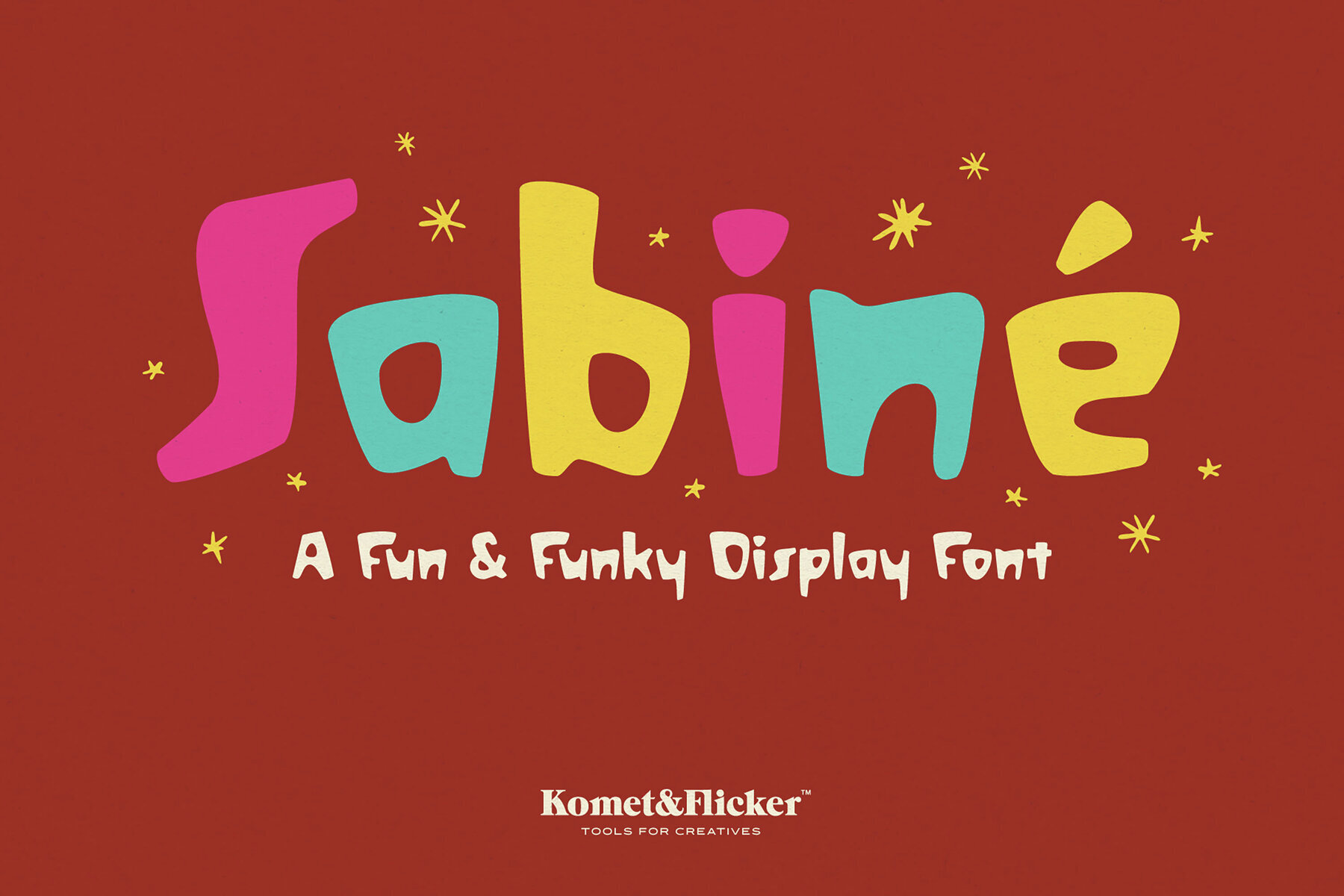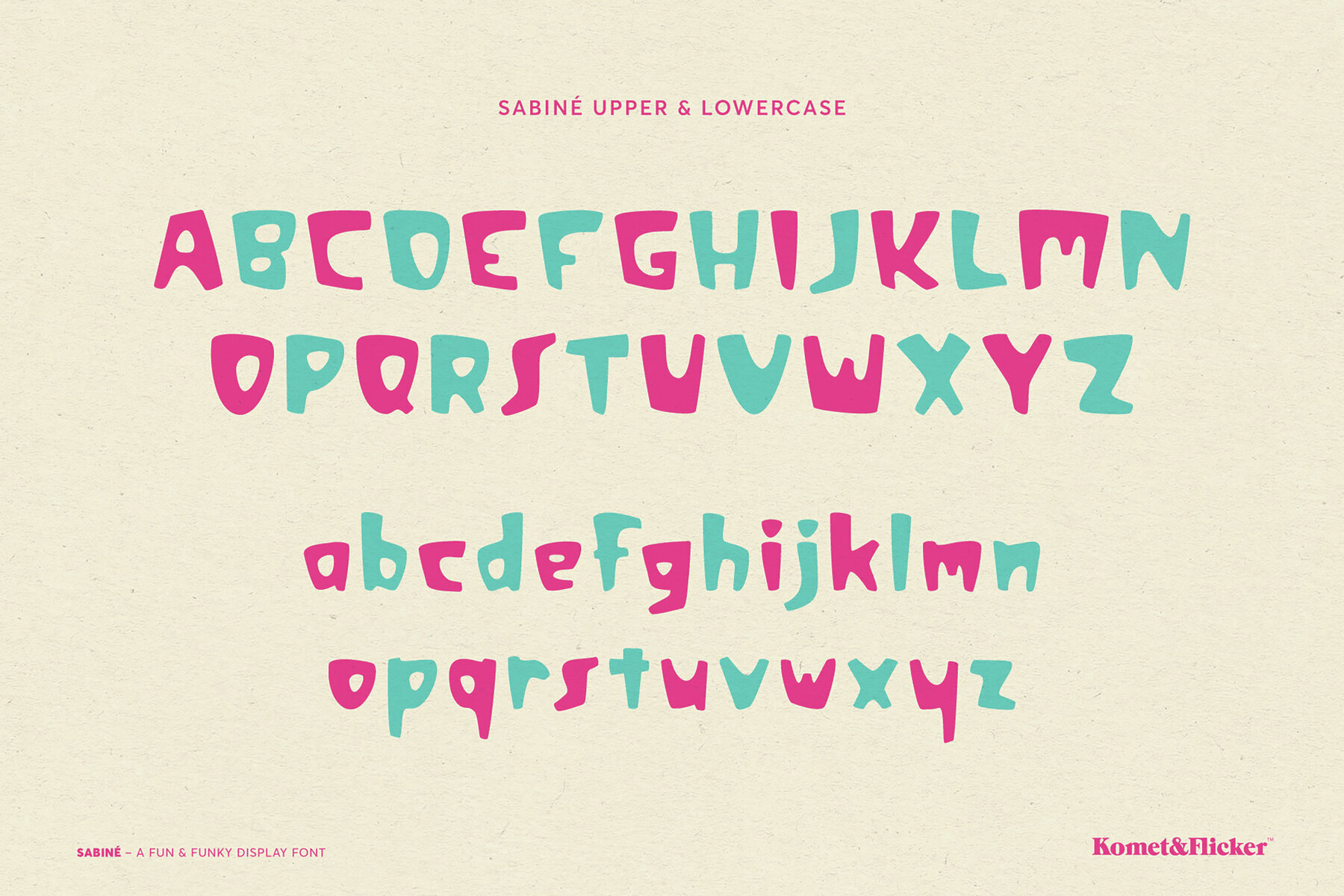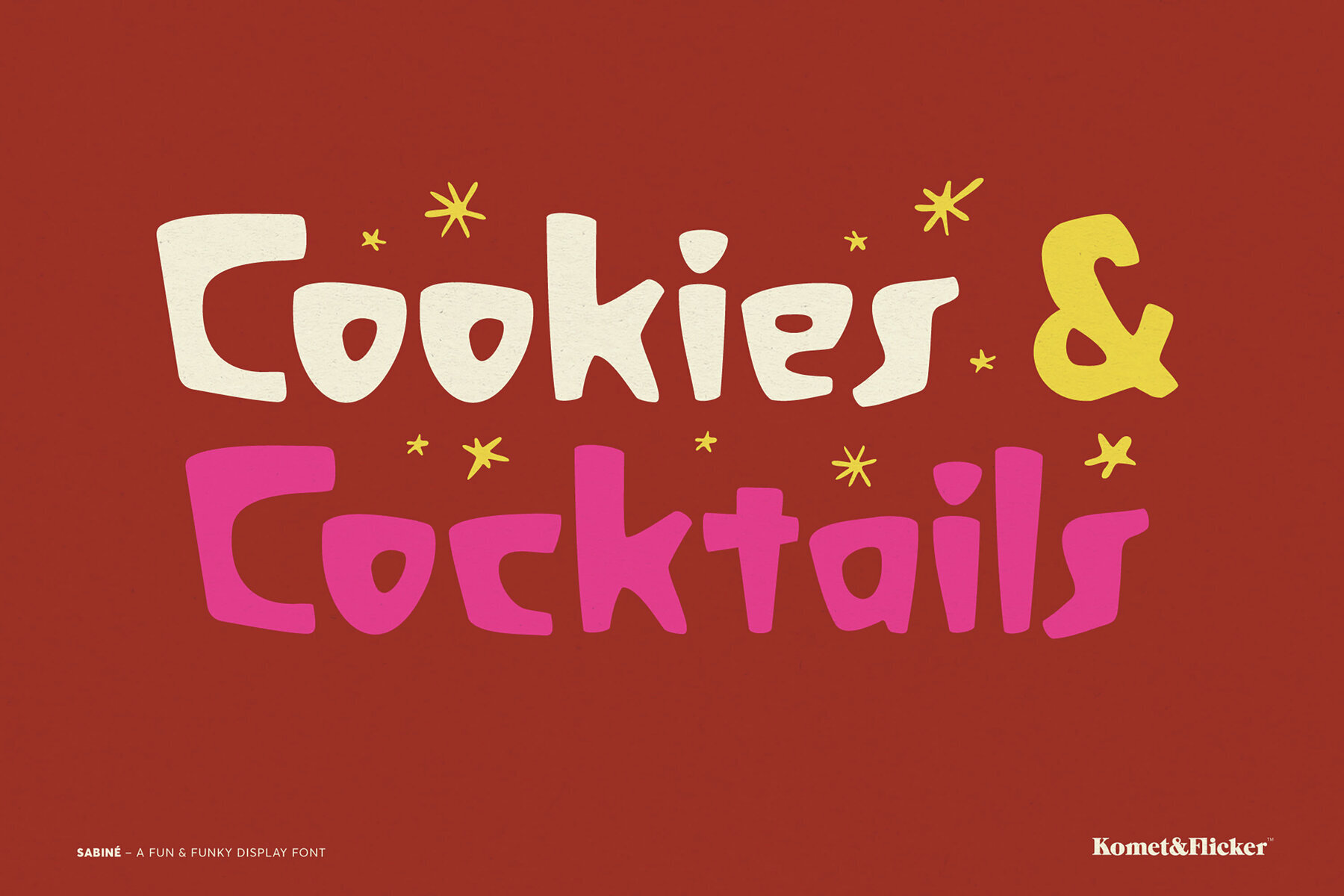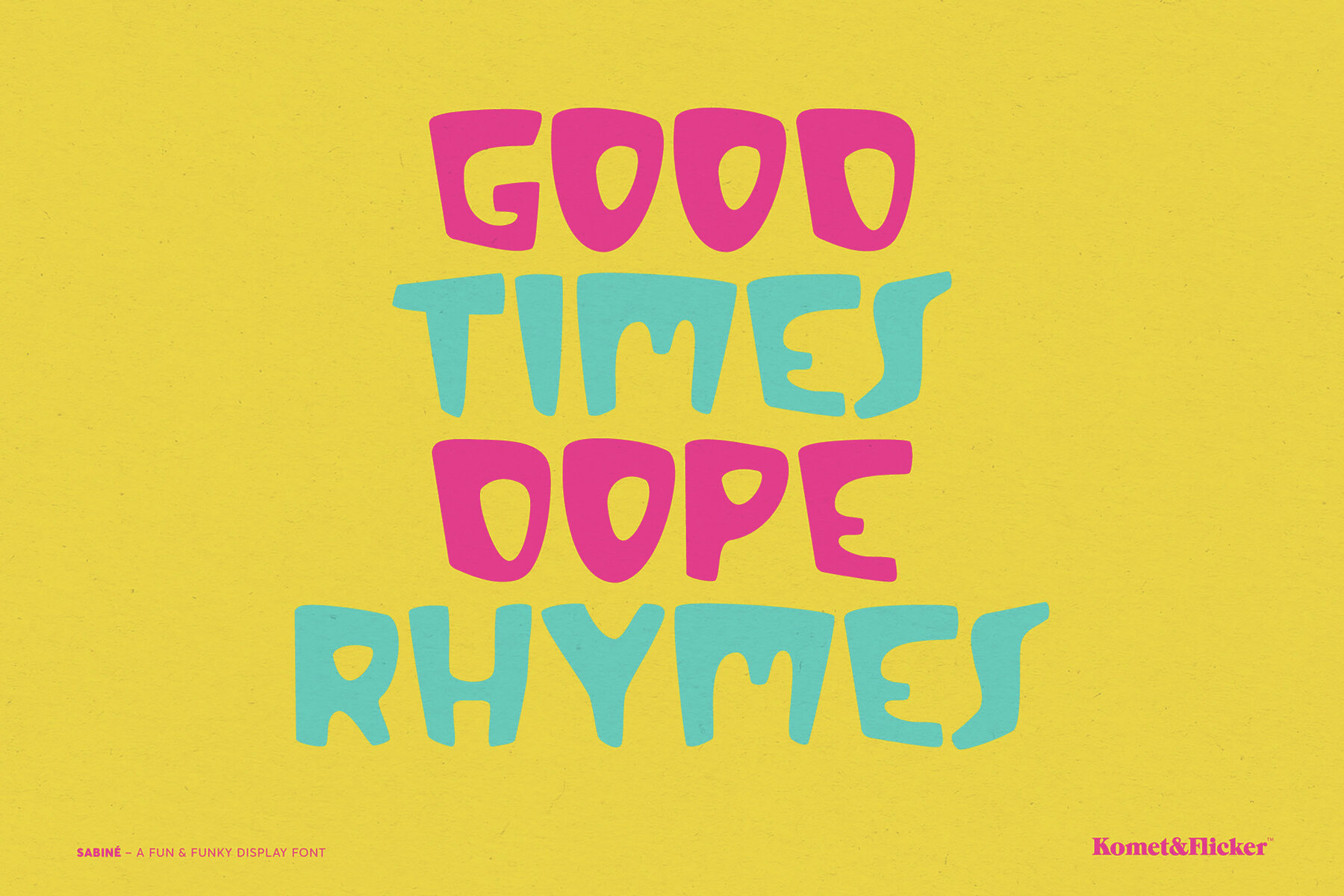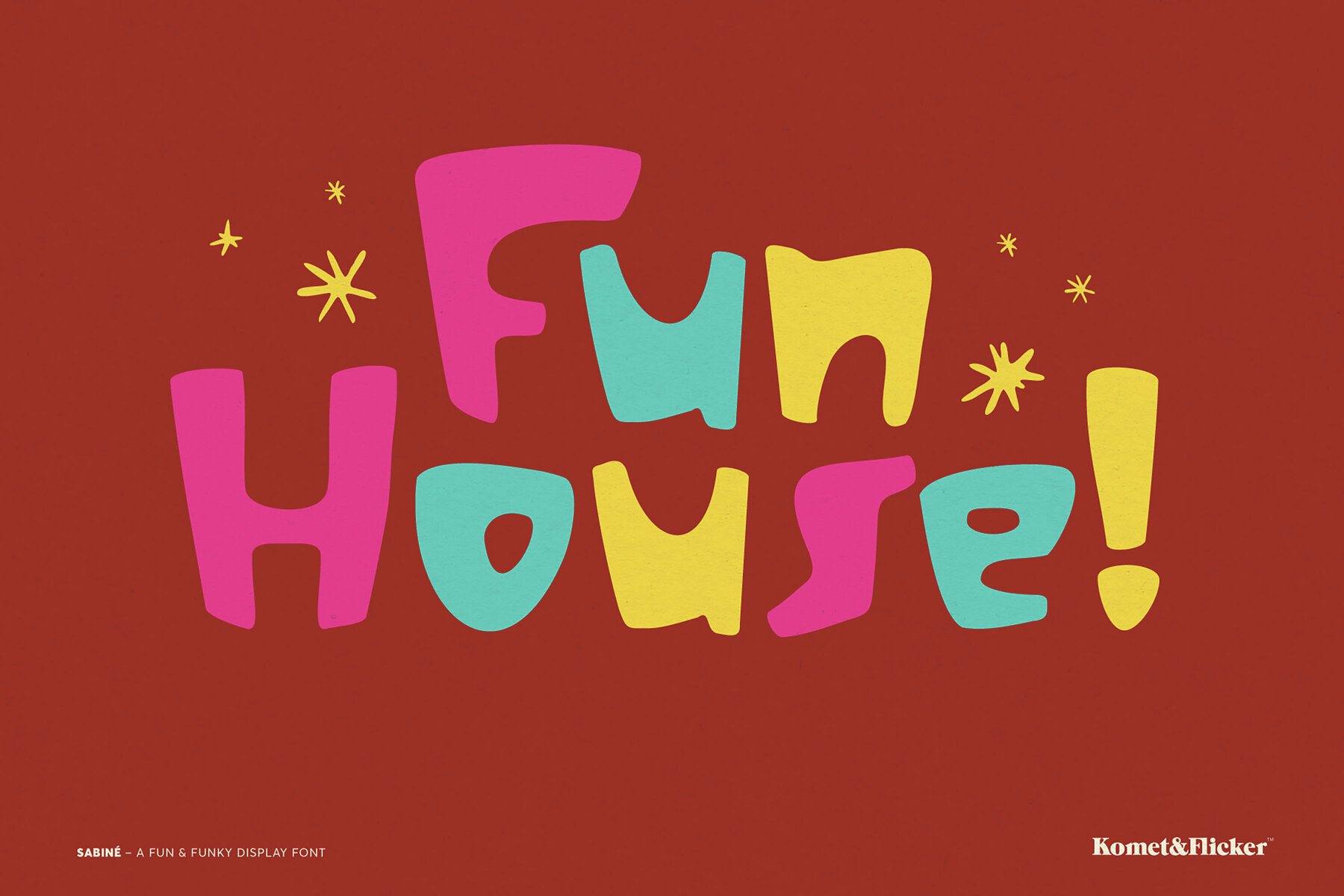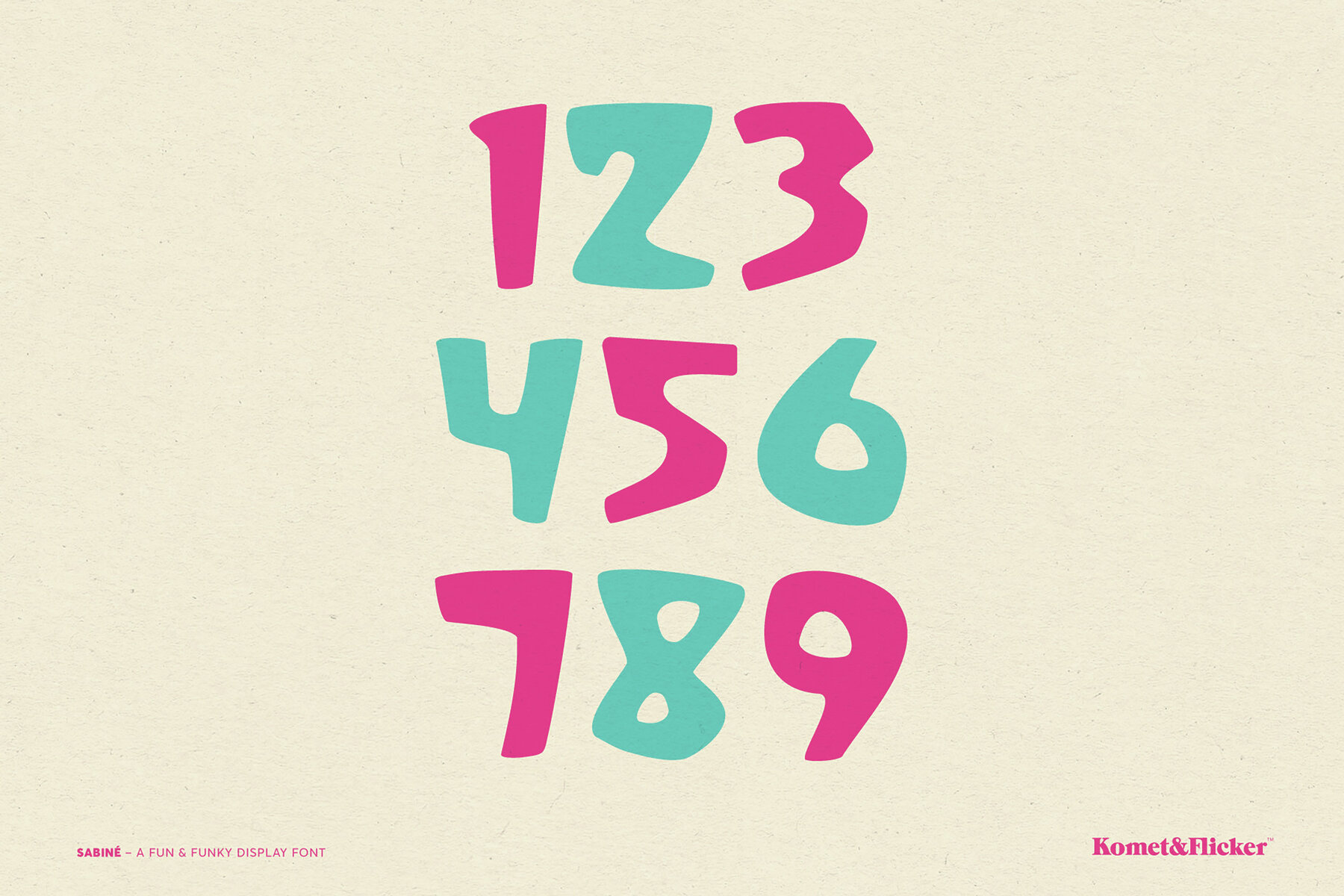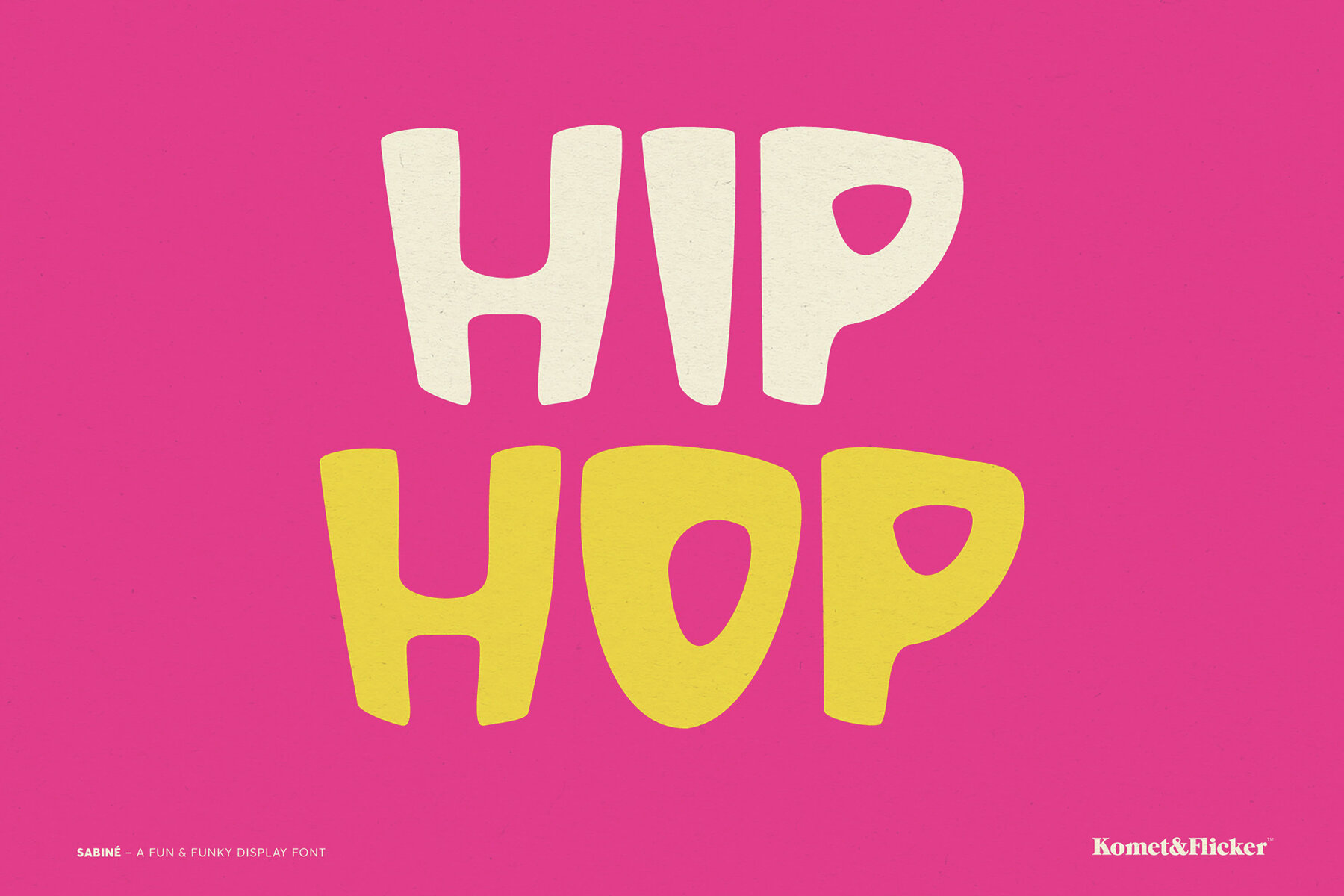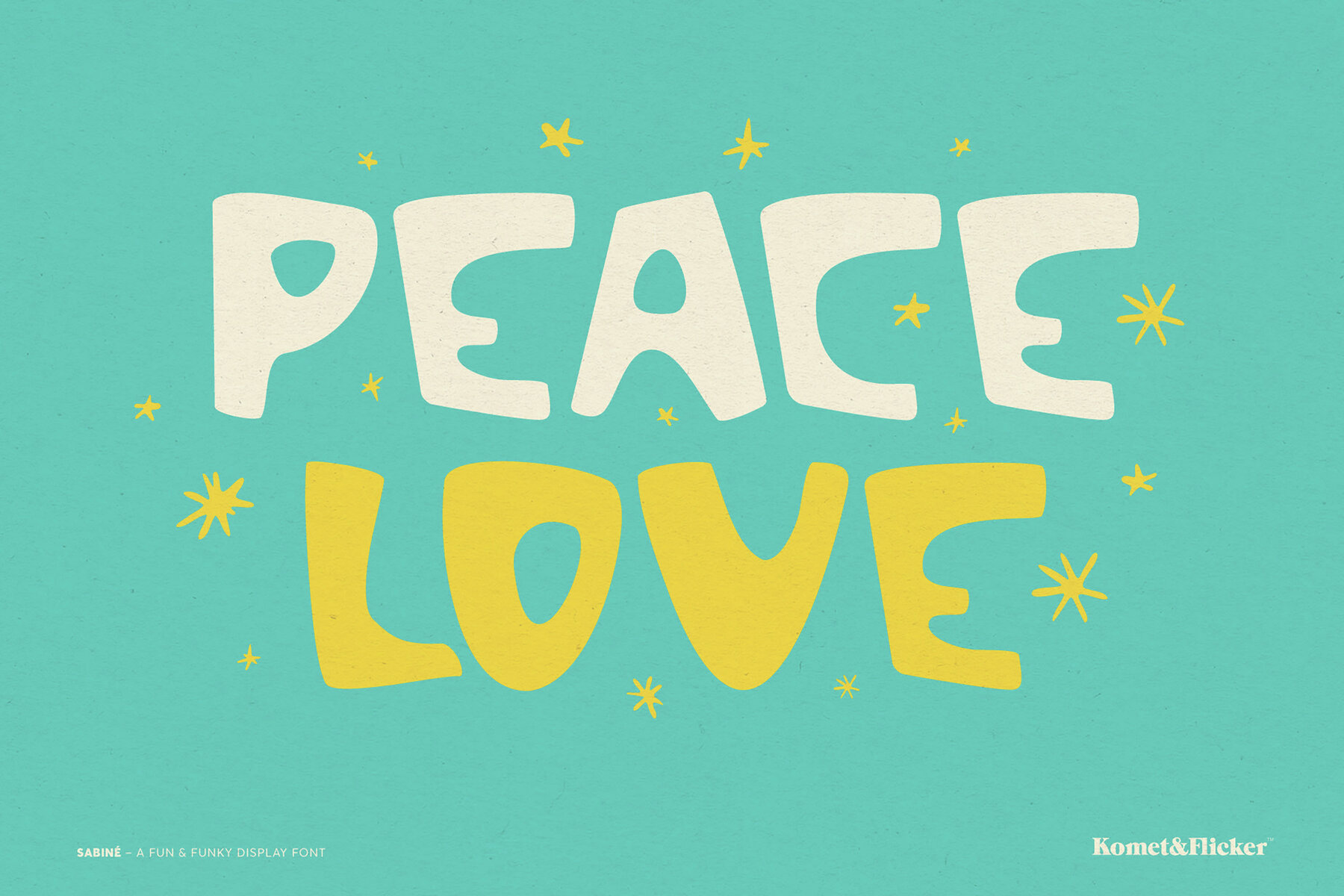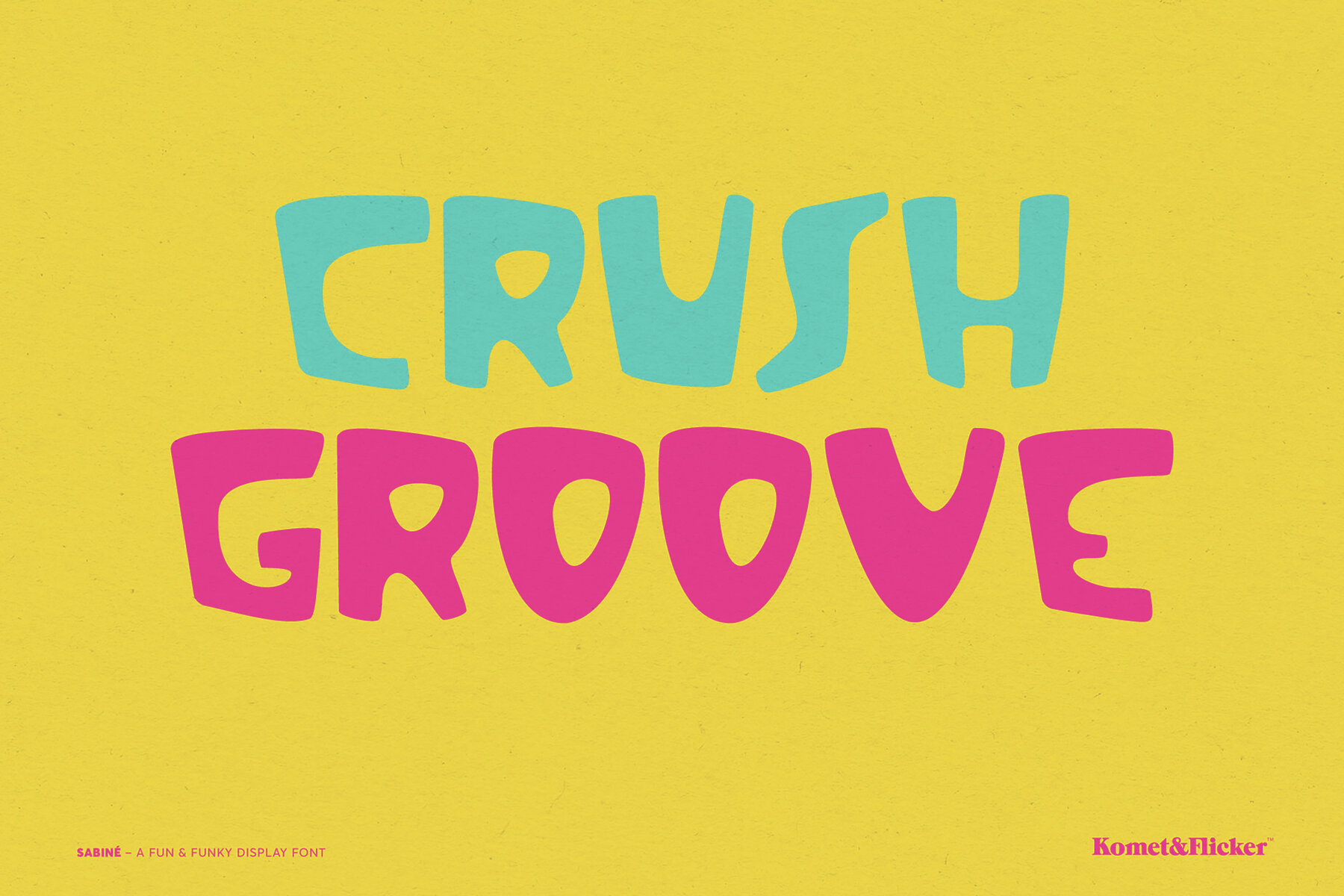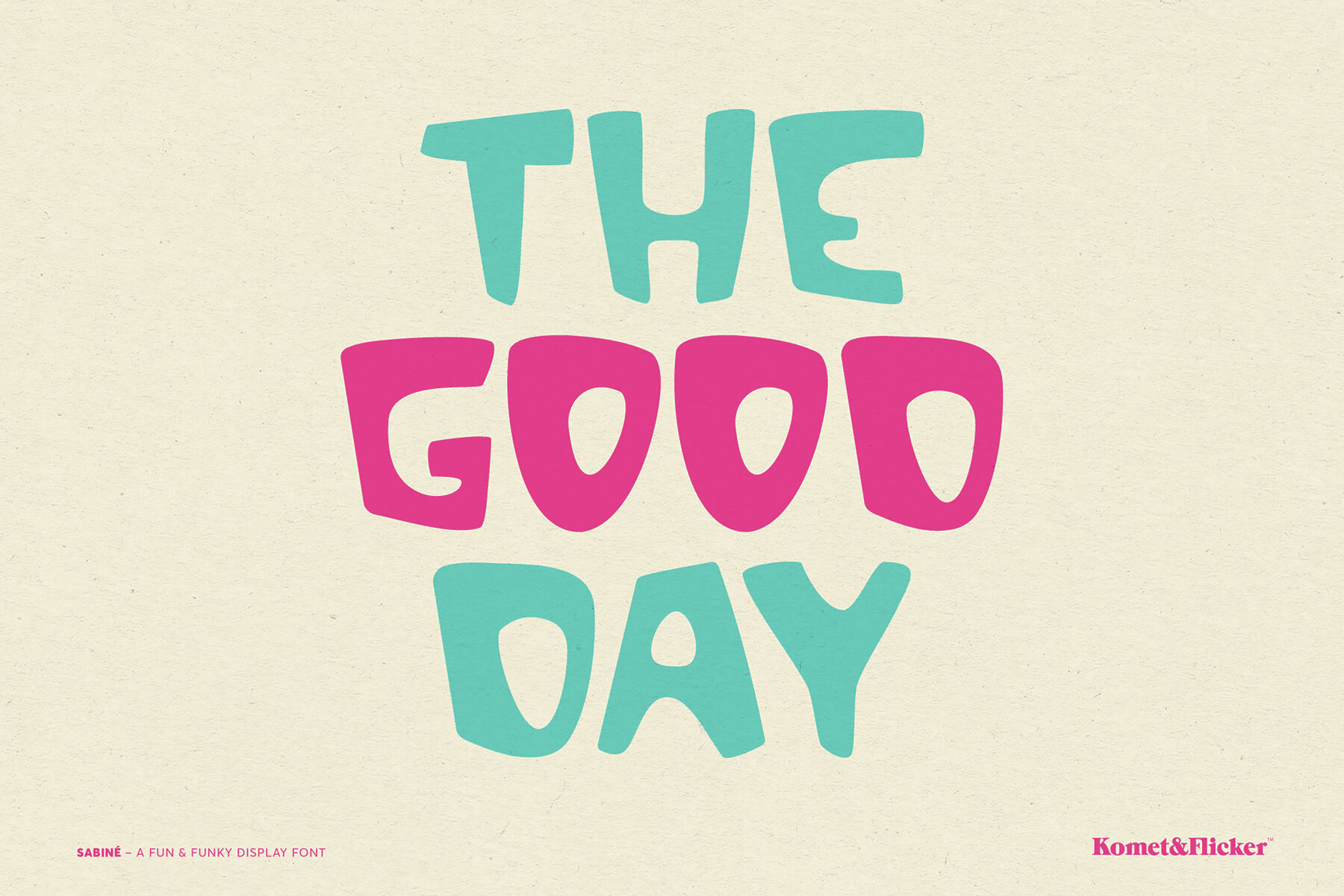
Sabiné Font
Sabiné is a dynamic display font that infuses any design with a lively and spirited essence. Its vibrant character is perfect for creating party invitations, children's themed projects, or any creative pursuit needing a whimsical touch. The quirky and attention-grabbing style of Sabiné makes it an ideal choice for designs bursting with personality and joy, ensuring your message stands out with enthusiasm.
This font provides a broad array of features, including A-Z uppercase and lowercase Latin characters, select European-specific characters, numbers, punctuation, and special symbols. Additionally, Sabiné offers six unique starburst dingbats for added flair. These extra custom glyphs can be easily accessed in Adobe Illustrator through the "Glyphs" panel or in Photoshop via "Panels" in the "Glyphs" section, allowing for seamless integration into your design workflow. Transform your creations into vibrant spectacles with Sabiné's playful and adventurous design elements.